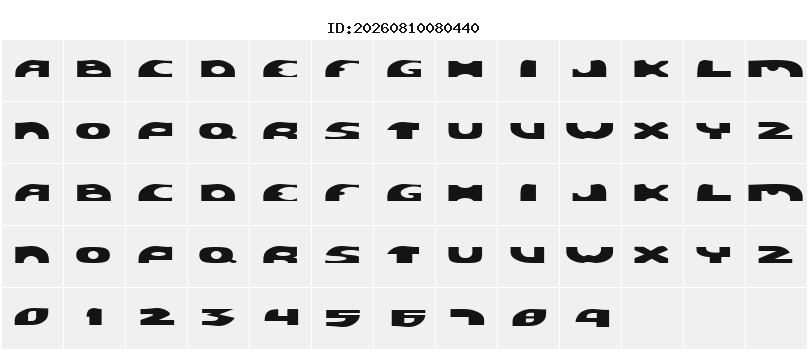
• Font Name: PIGSTY
• Font ID: Macromedia Fontographer 4.1 PIGSTY
• Full Font Name: PIGSTY
• Version: Macromedia Fontographer 4.1 98‐03‐16
• PostScript Name: PIGSTY
• Character Count: 213
• Copyright: smells funny....©Thomas Rogerstam 1998
About PIGSTY.ttf
PIGSTY.ttf is a modern, elegant sans-serif font designed for ultimate readability and visual harmony. Perfect for branding, headlines, web design, and print materials.